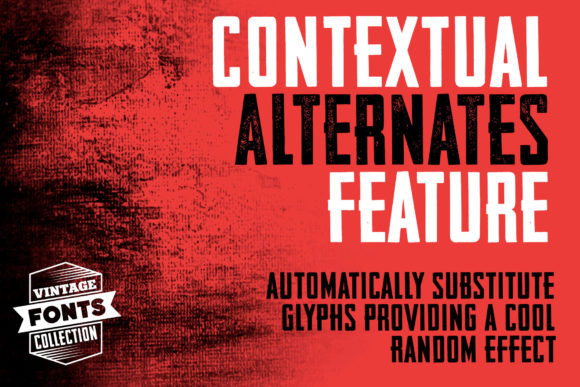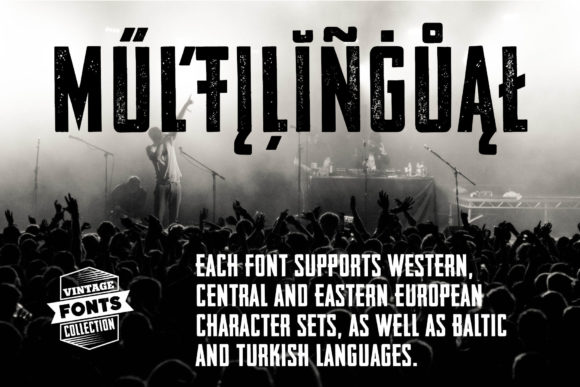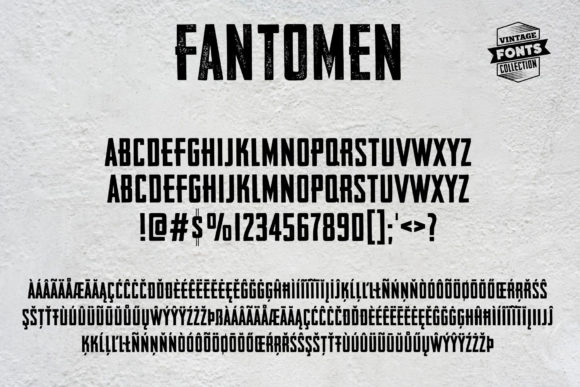
Fantomen Font: Elevate Your Designs with a Vintage Twist
Are you tired of using the same old fonts in your design projects? Do you want to add a touch of nostalgia and uniqueness to your creations? Look no further than Fantomen Font, a set of 2 hand-drawn fonts inspired by vintage ads, old newspapers, and retro sign painting.
The Story Behind Fantomen Font
Fantomen Font is a carefully crafted typeface that pays homage to the art of traditional sign painting and vintage advertising. The font is designed to evoke the feeling of a bygone era, with its bold lines, curvaceous shapes, and distressed texture. Whether you’re working on a branding project, a packaging design, or a digital advertisement, Fantomen Font is sure to turn your design into an eye-catcher.
What Makes Fantomen Font Special?
So, what sets Fantomen Font apart from other fonts on the market? Here are just a few reasons why designers and crafters are falling in love with this unique typeface:
- Hand-drawn with love: Fantomen Font is a hand-drawn typeface, created with precision and care to ensure that every letter, every curve, and every detail is perfect.
- Inspired by vintage ads: The font is inspired by the classic advertisements of yesteryear, with a bold and eye-catching style that’s sure to grab attention.
- Retro sign painting vibes: Fantomen Font also draws inspiration from traditional sign painting, with a distressed texture and a worn, vintage look that’s perfect for creating unique designs.
- Two font styles to choose from: Fantomen Font comes with two font styles, allowing you to experiment with different looks and feels to find the perfect fit for your project.
Fantomen Font is a versatile typeface that’s perfect for a wide range of design projects, including:
- Branding and logos: Use Fantomen Font to create a unique and memorable logo that will set your brand apart from the competition.
- Packaging design: Add a touch of vintage charm to your packaging designs with Fantomen Font, perfect for food labels, product packaging, and more.
- Digital advertising: Make your digital ads stand out with Fantomen Font, perfect for social media graphics, display ads, and more.
- Sign making and crafting: Fantomen Font is also perfect for crafters and sign makers, with a distressed texture and vintage look that’s perfect for creating unique signs and decorations.
If you’re looking for a font that will add a touch of vintage charm to your design projects, look no further than Fantomen Font. With its hand-drawn style, inspired by vintage ads and retro sign painting, this unique typeface is sure to turn your designs into eye-catchers. Whether you’re a designer, crafter, or sign maker, Fantomen Font is the perfect choice for anyone looking to add a little nostalgia and personality to their creations.